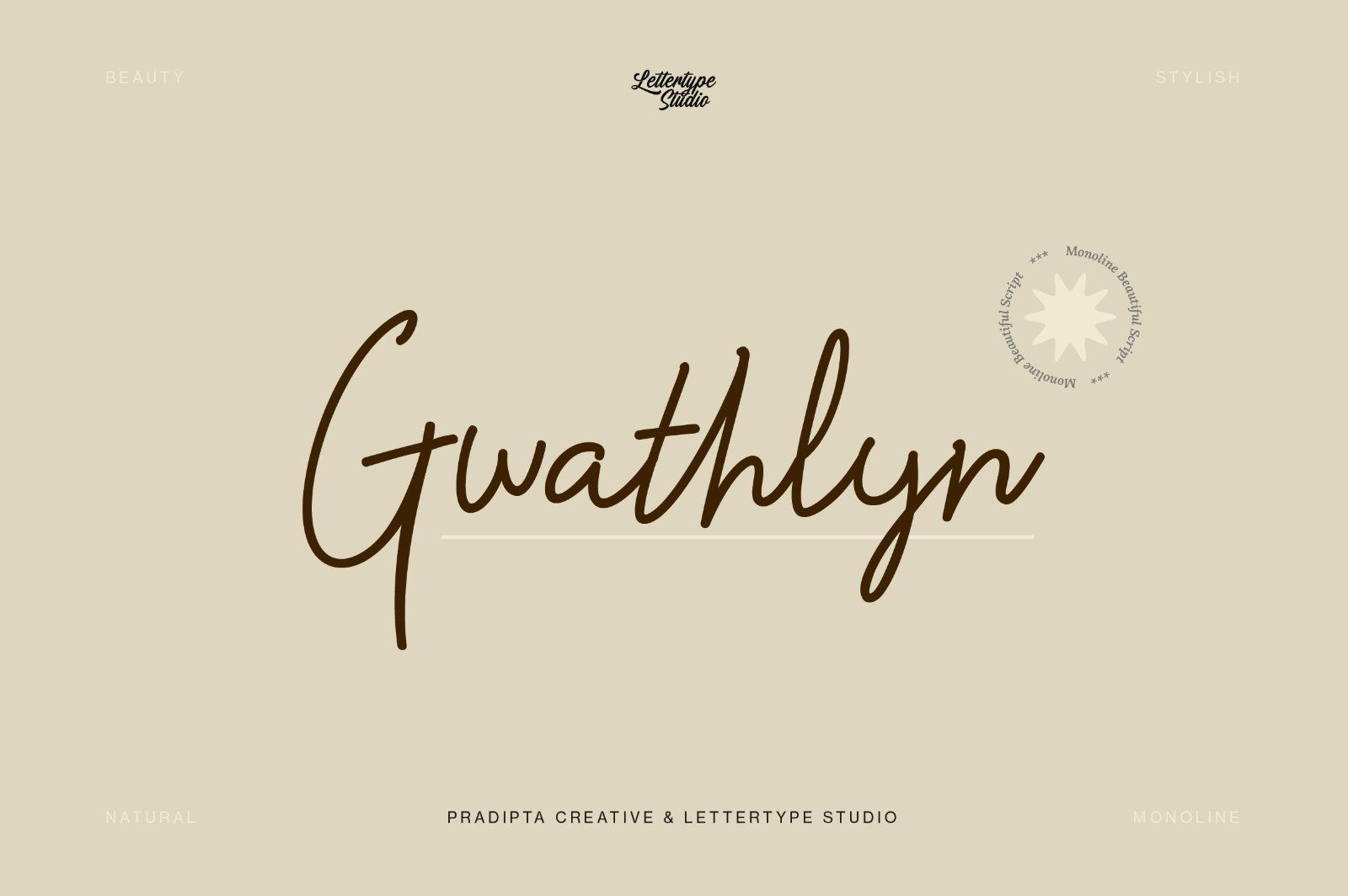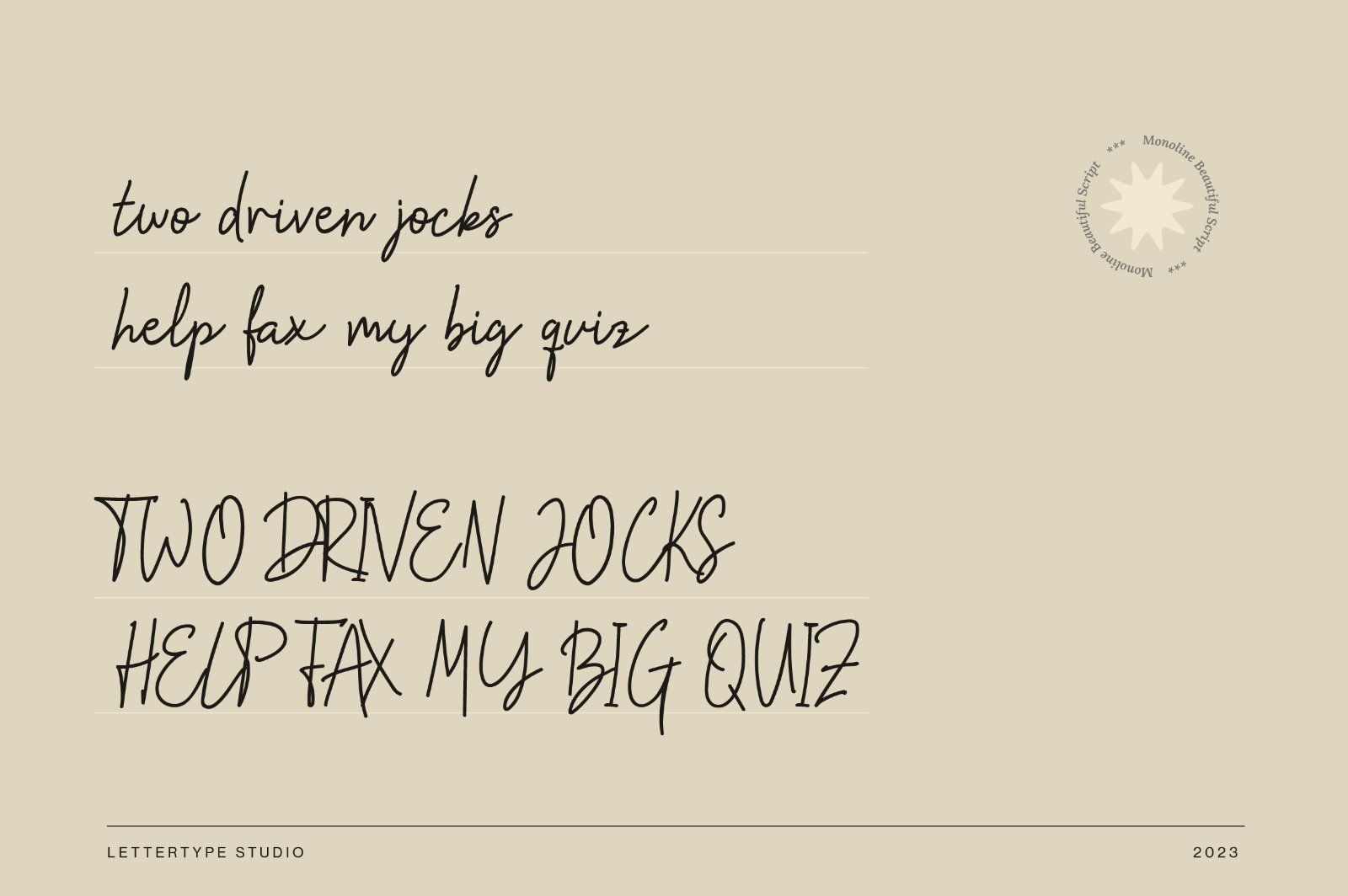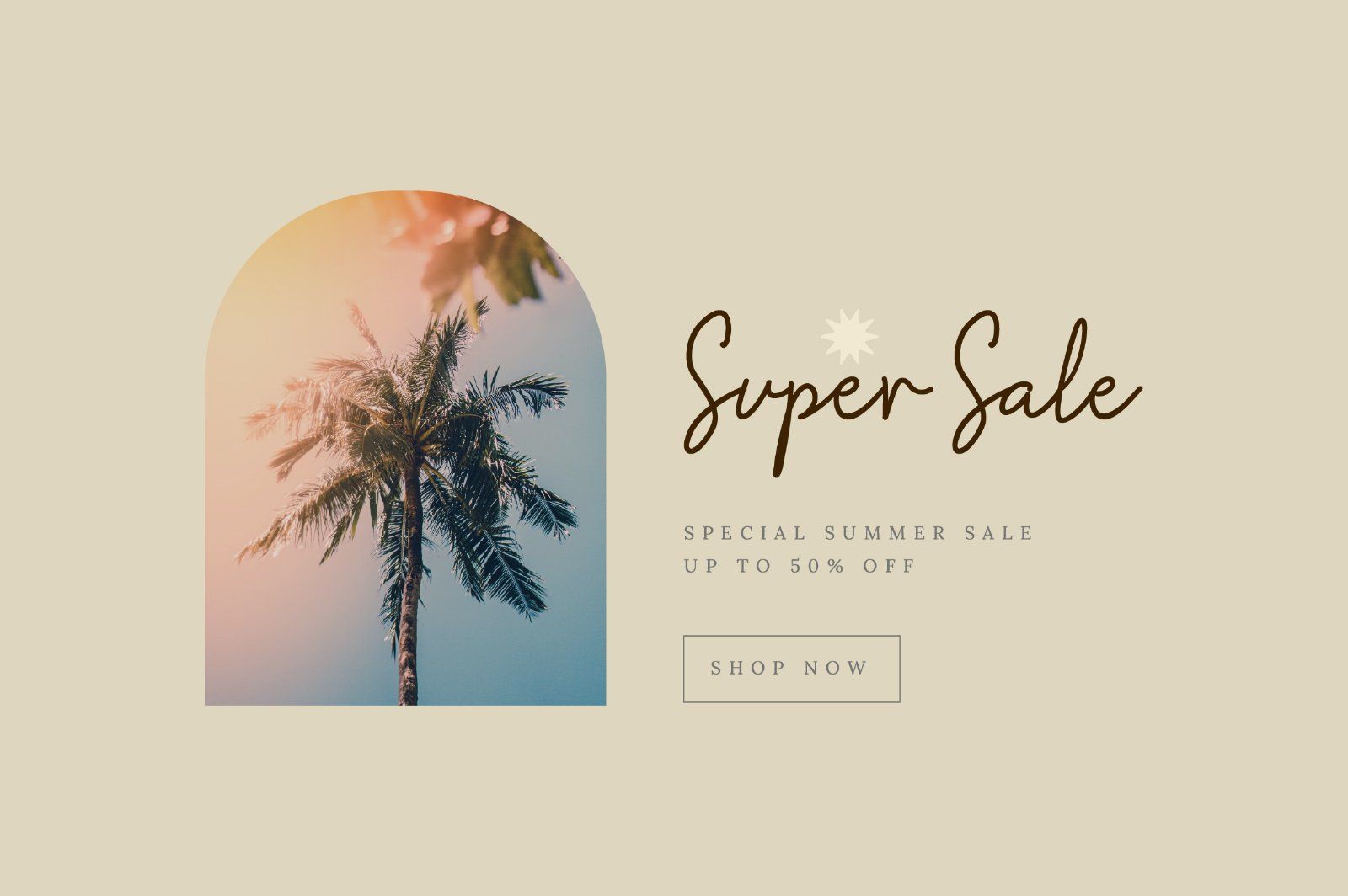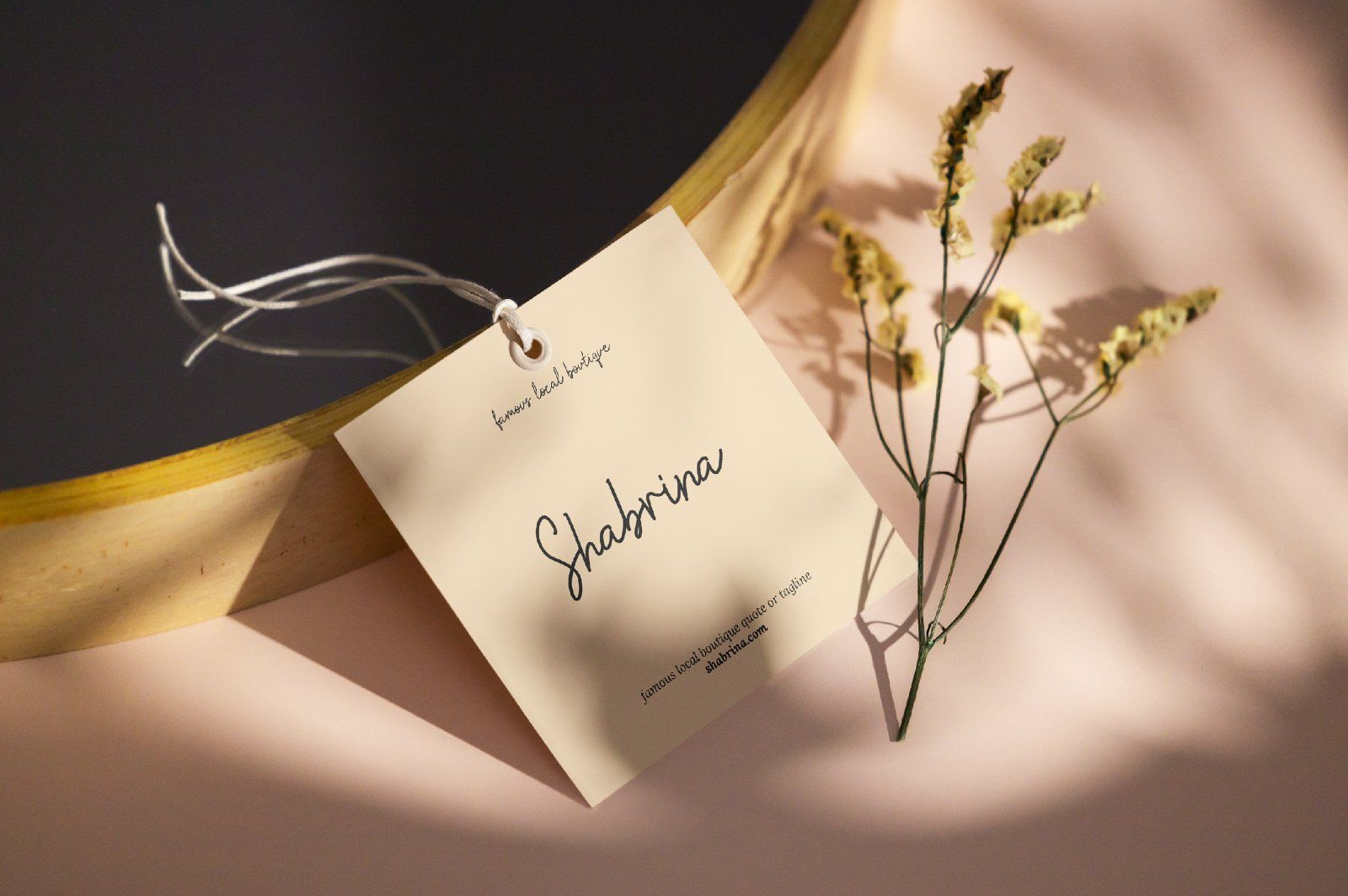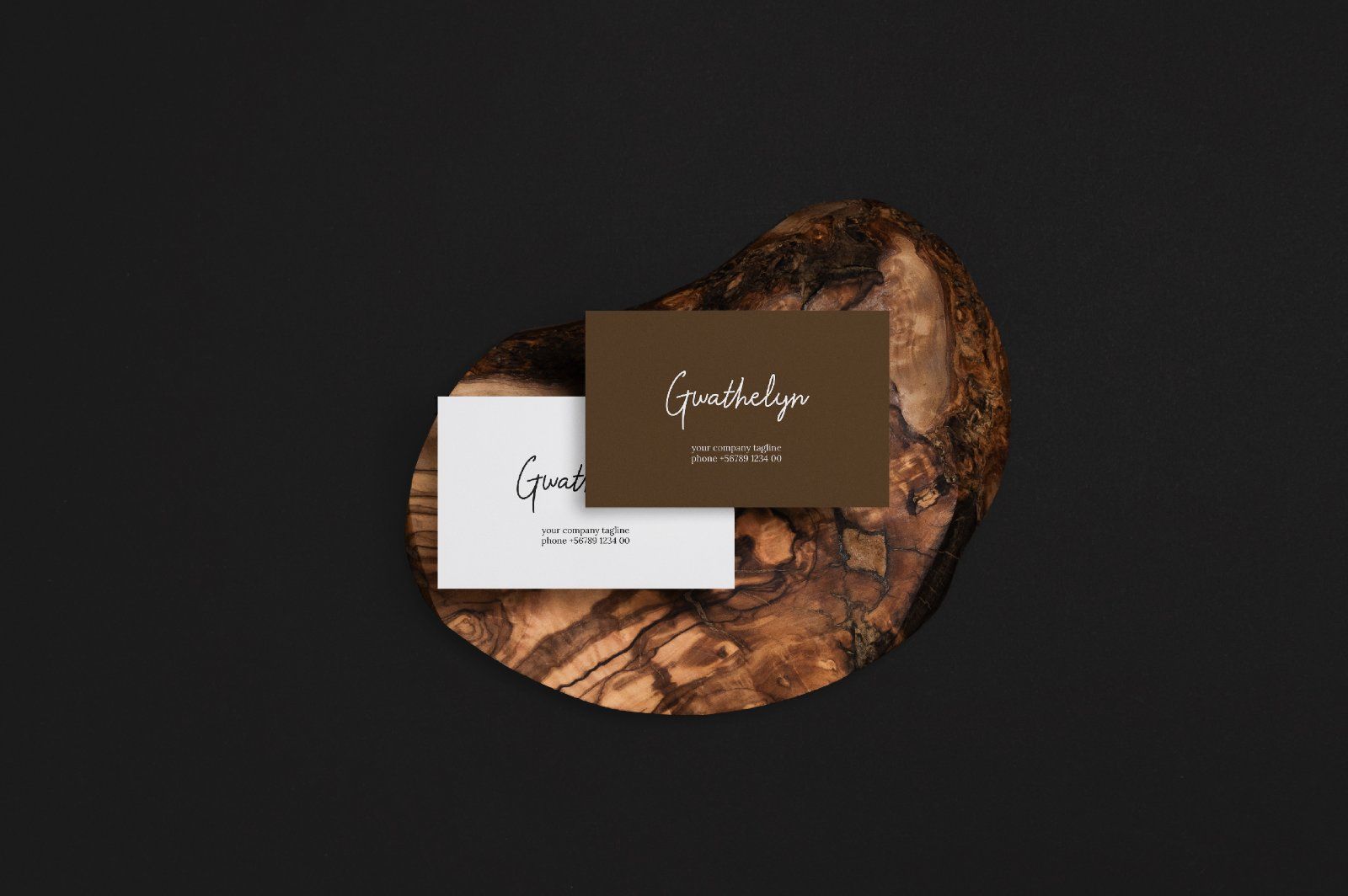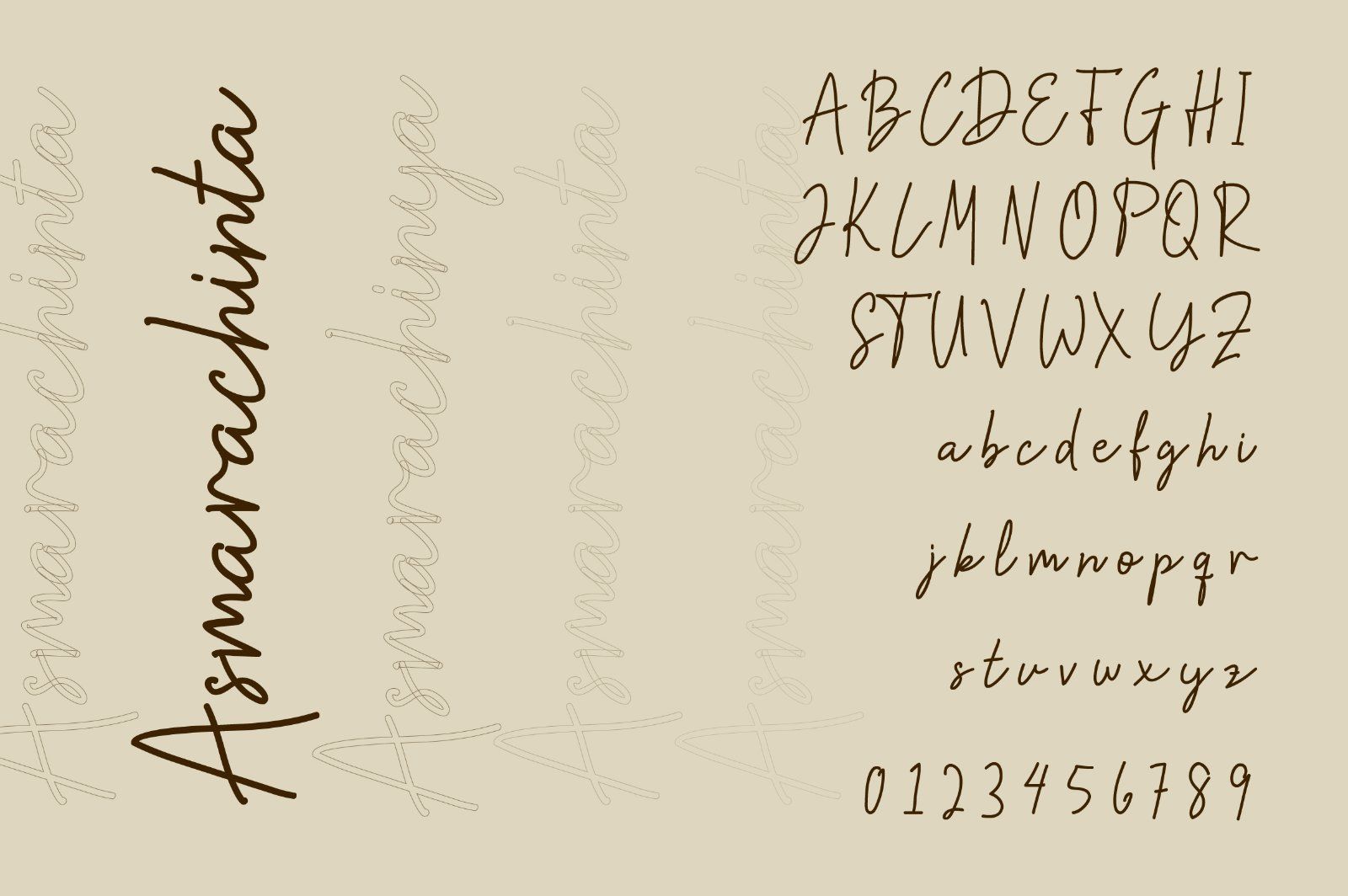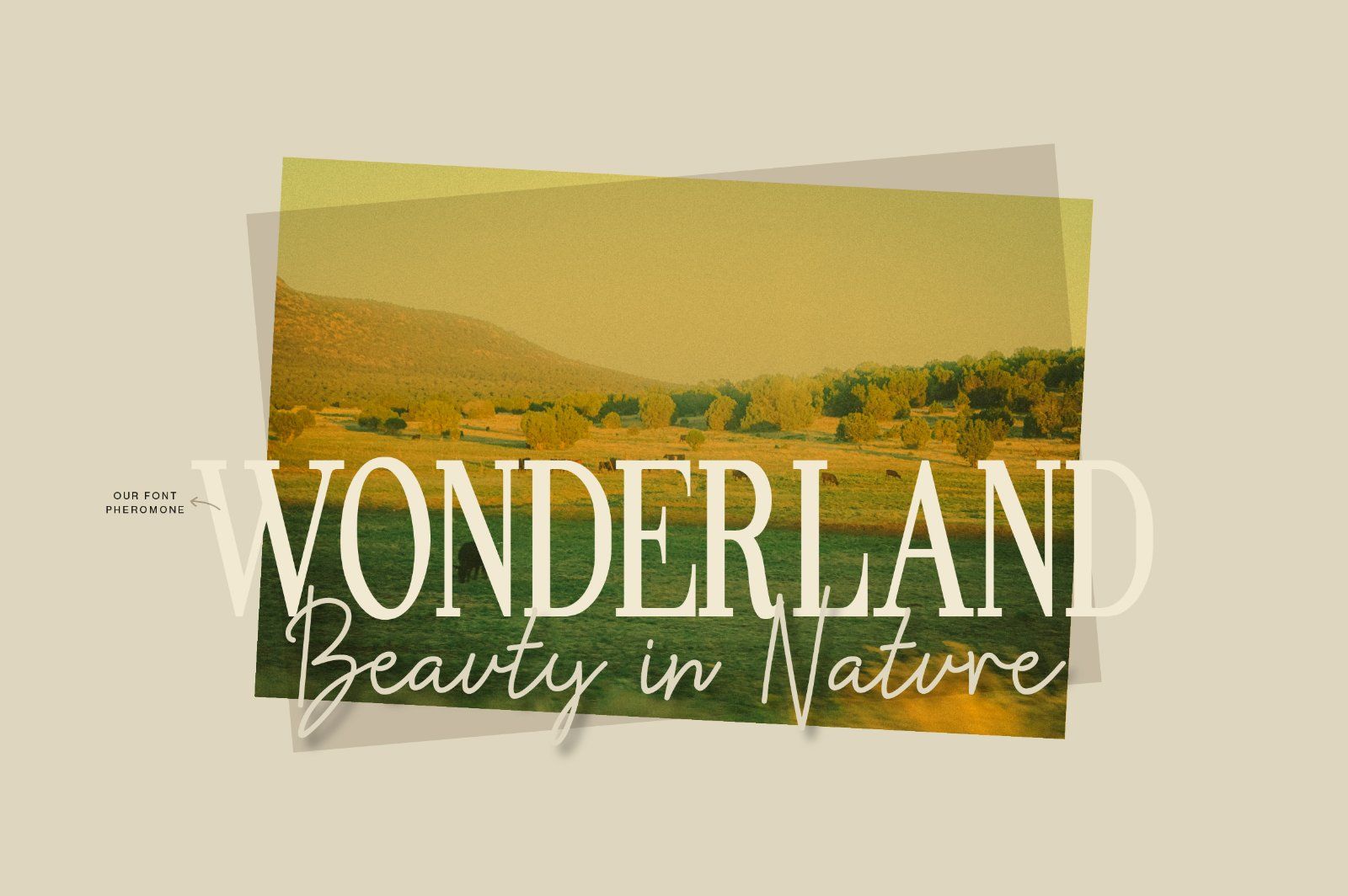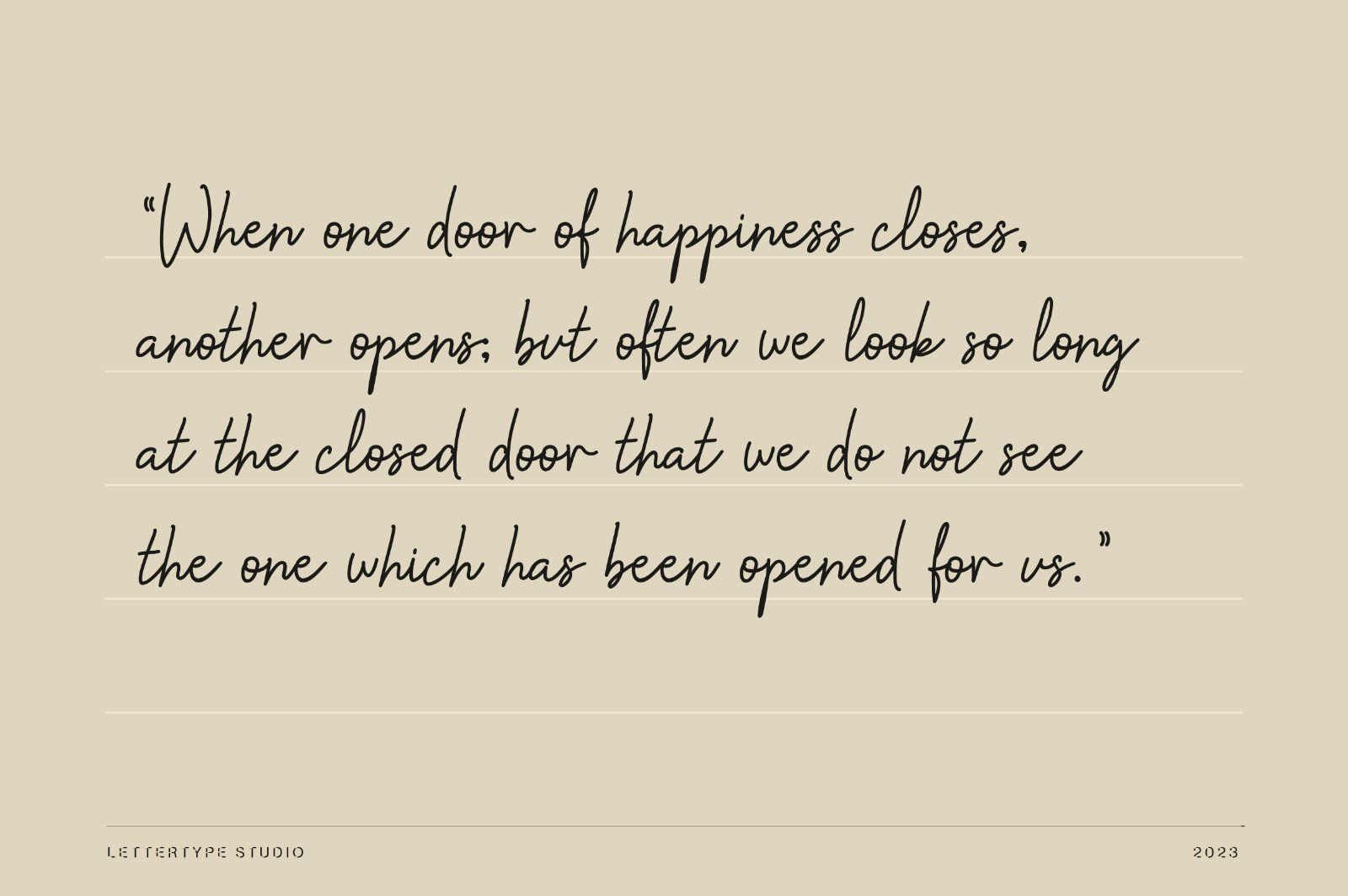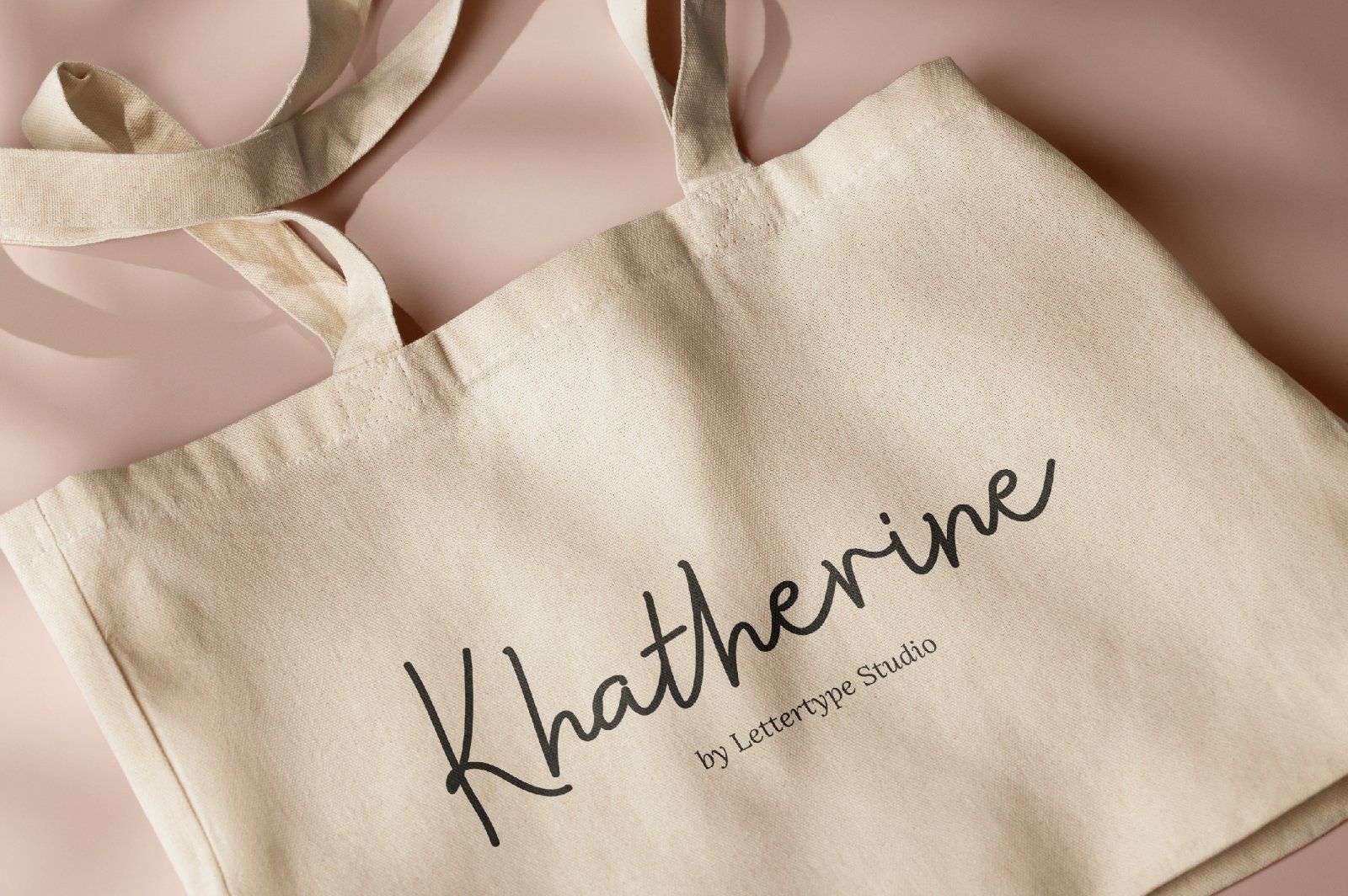
Introducing our new modern and luxurious handwriting script font Gwathlyn. Gwathlyn is a handmade beautiful monoline, natural, and stylish style.
Gwathlyn script consists of a fashionable sophisticated signature-style script with its own unique curves and an elegant inky flow.
Gwathlyn script is perfect for photography, watermark, social media posts, advertisements, logos & branding, invitation, product designs, label, stationery, wedding designs, product packaging, subheader or header, special events, or anything that need handwriting taste.
• Lowercase, Uppercase, and Ligatures
• Accented Characters